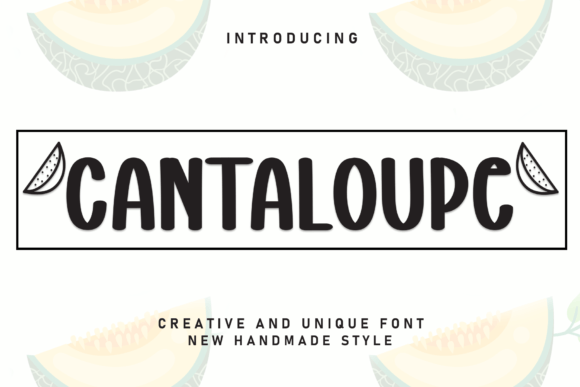
The Sweetest Display Font You’ll Ever Meet: Cantaloupe
I’ll never forget the time I was working on a children’s party invitation design. I had the concept, the colors, and the graphics all sorted out, but something was missing – the perfect font. That’s when I stumbled upon Cantaloupe, a display font that instantly brought my design to life. If you’re a designer, crafter, or creative hobbyist looking for a font that adds a touch of fun and playfulness to your projects, you’re in the right place!
A Personal Review of Cantaloupe Font
What I Love About Cantaloupe ✨
• ✅ Cute and Playful Design: Cantaloupe is perfect for children’s themed designs, with its bright and cheerful vibe.
• ✅ Easily Accessible Characters: As an encoded PUA character font, you can access all the characters without needing additional design software.
• ✅ Bright and Pastel Color Friendly: This font pairs beautifully with a variety of colors, making it ideal for designs that require a pop of color.
• ✅ High Versatility: Whether you’re designing for digital or print, Cantaloupe adapts well to different mediums.
• ⚠️ Legibility at Small Sizes: Like many display fonts, Cantaloupe may lose legibility when used at very small sizes. It’s best used at larger sizes where its playful nature can shine.
• ⚠️ Overuse Can Be Overwhelming: While Cantaloupe is cute and fun, using it excessively in a single design can be overwhelming. Balance is key.
The Story Behind Cantaloupe
Cantaloupe was designed with one goal in mind: to bring a splash of fun and playfulness to designs. Inspired by the bright colors and sweetness of fresh cantaloupe, the designer aimed to create a font that feels approachable, friendly, and perfect for projects aimed at children or those young at heart.
Q: Is Cantaloupe suitable for professional projects?
A: Absolutely! Despite its playful nature, Cantaloupe can add a unique touch to professional projects, especially those in creative, educational, or children-focused industries.
Q: Does Cantaloupe support OpenType features?
A: As an encoded PUA character font, Cantaloupe offers easy access to its characters without needing to dive into OpenType features. However, it’s always best to check the specific capabilities of the font.
Cantaloupe is more than just a display font – it’s a design element that can transform your projects with its playful and cheerful vibe. Whether you’re designing for fun or for a client, Cantaloupe is sure to make your designs stand out in a crowd!